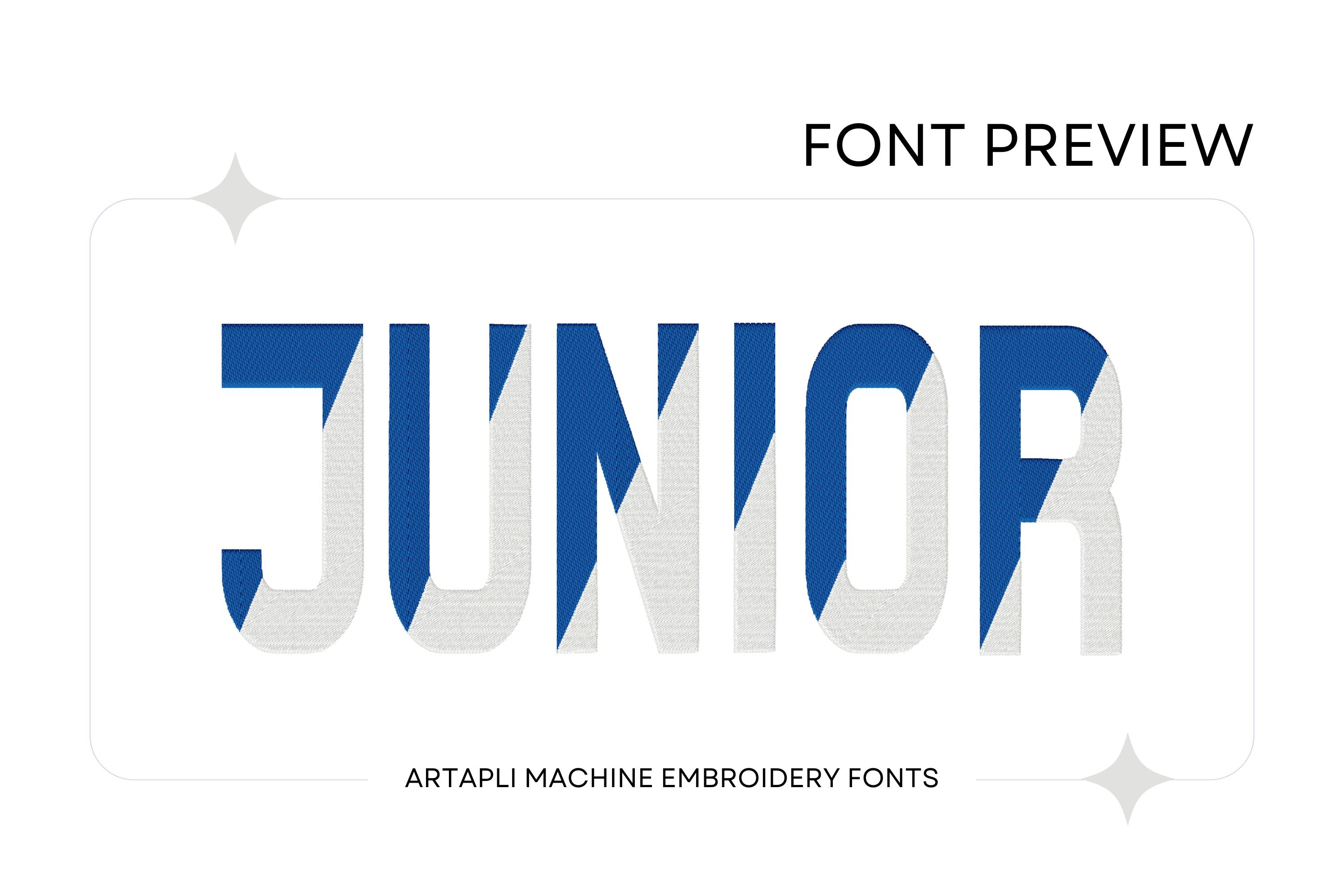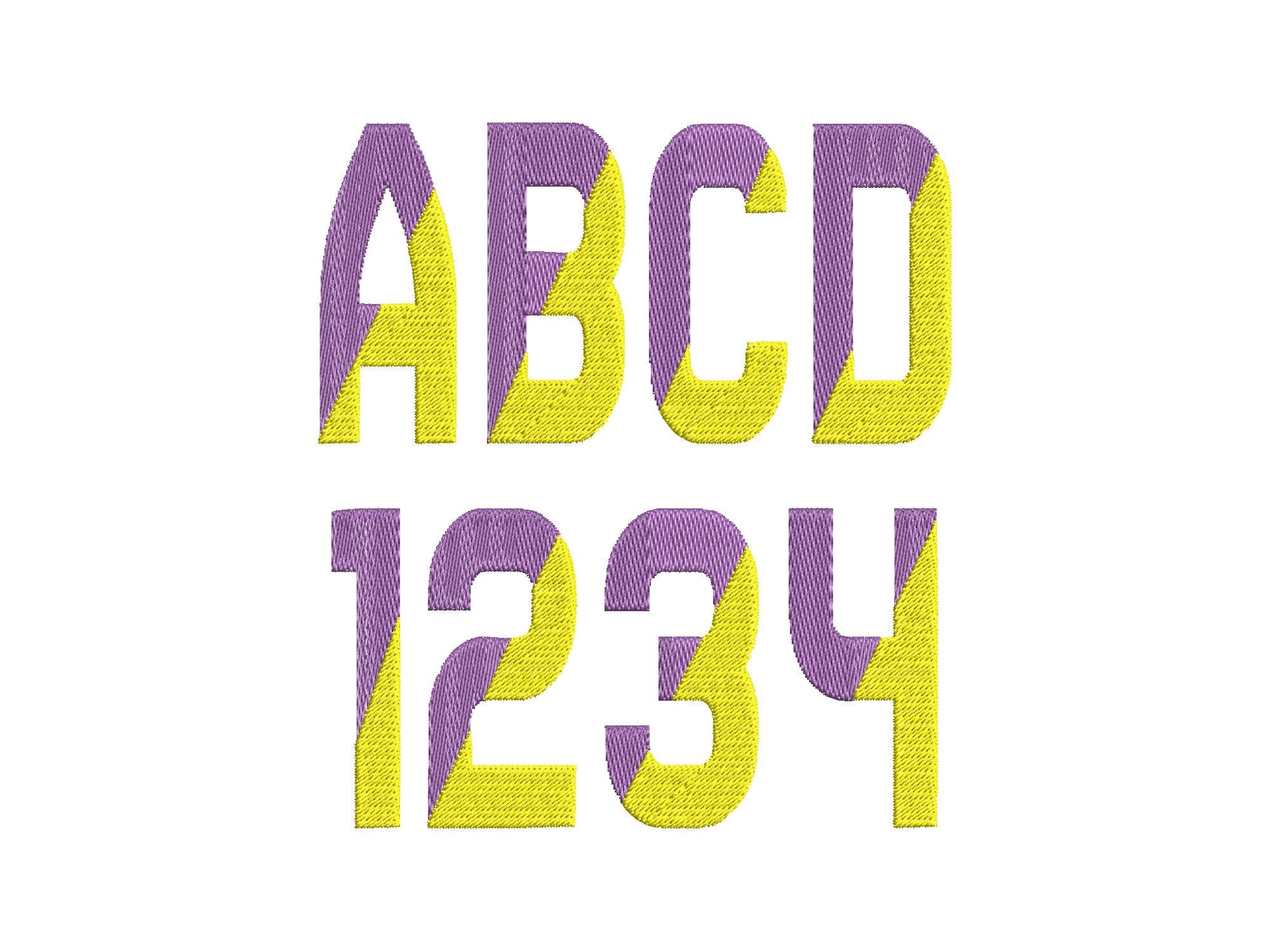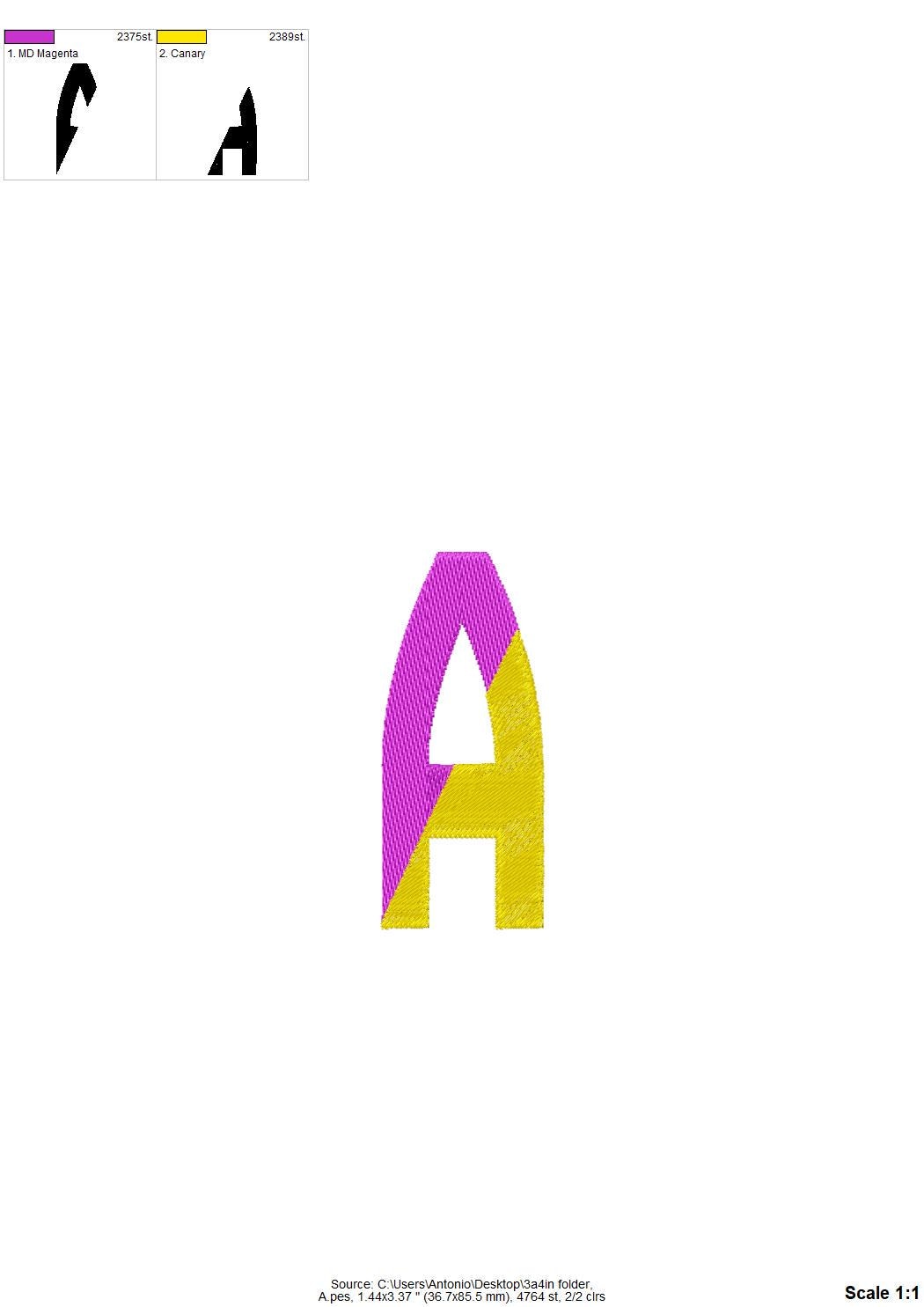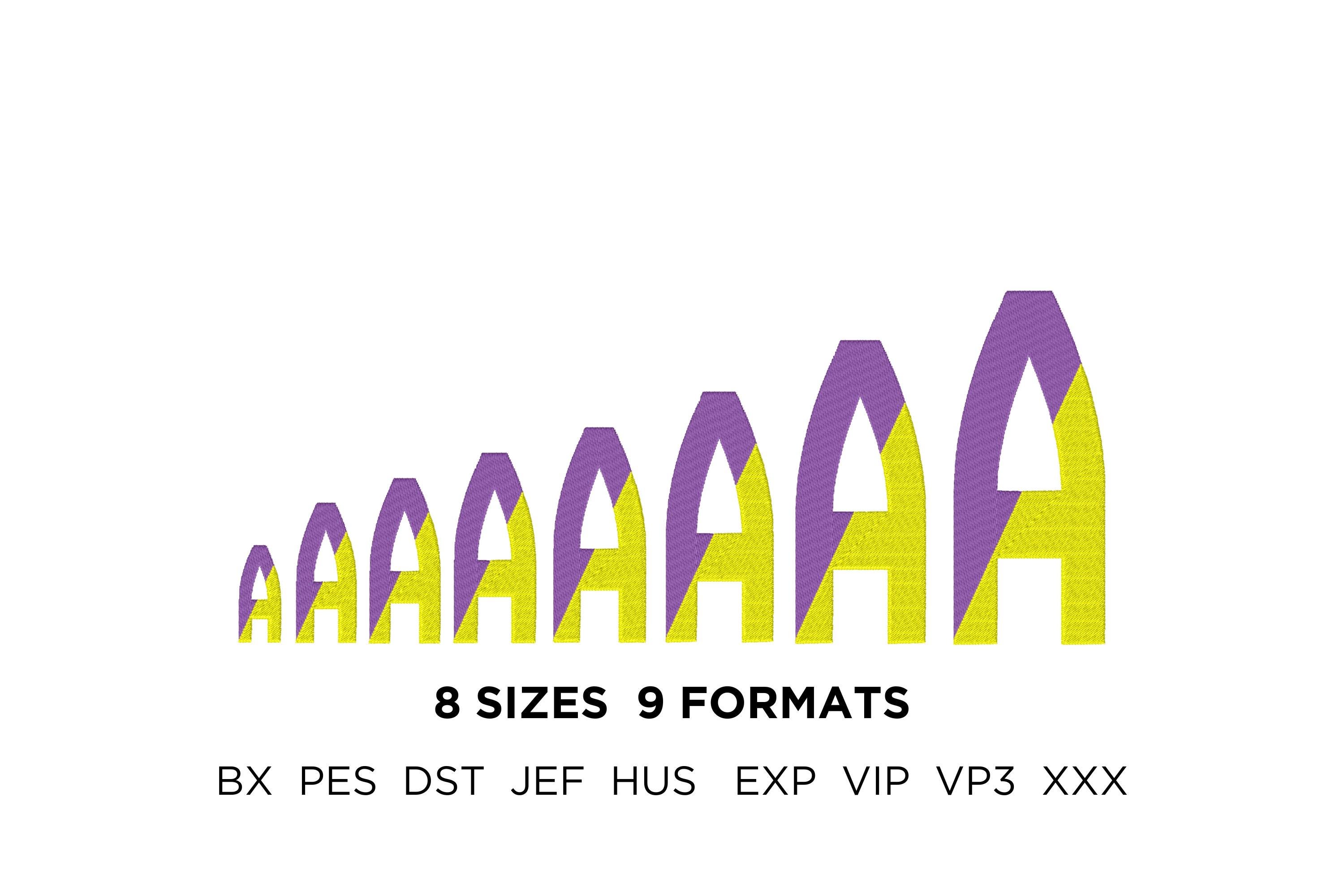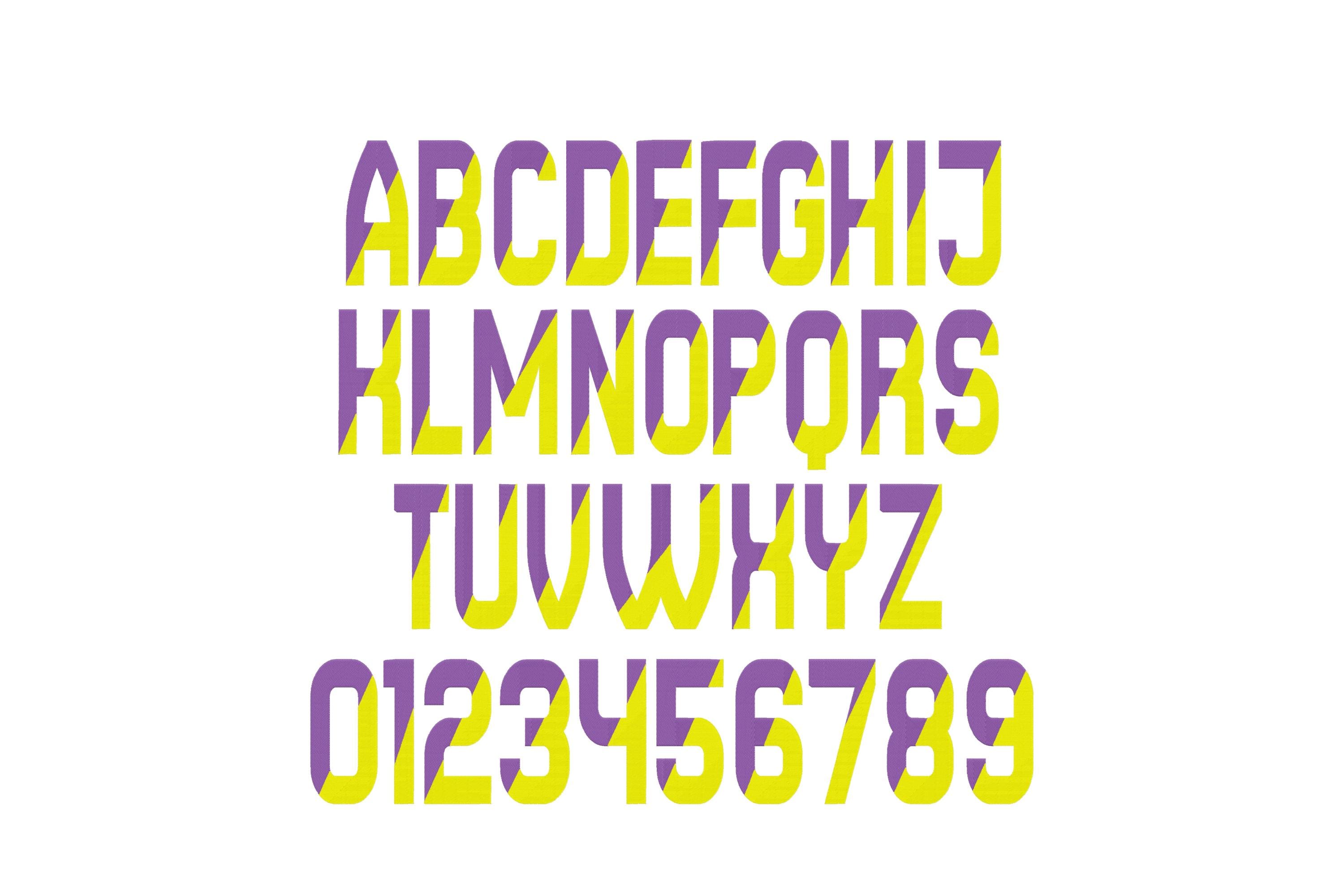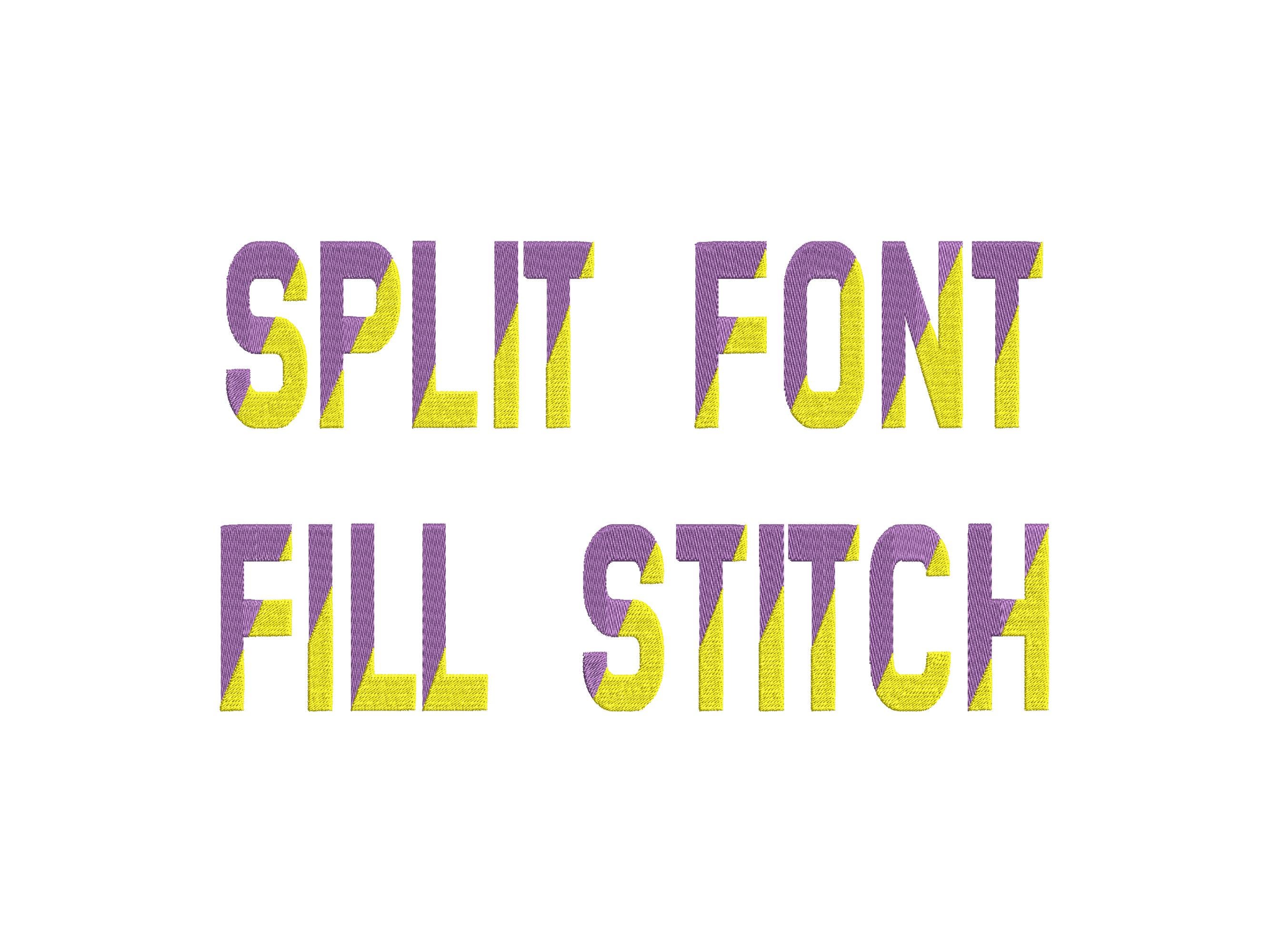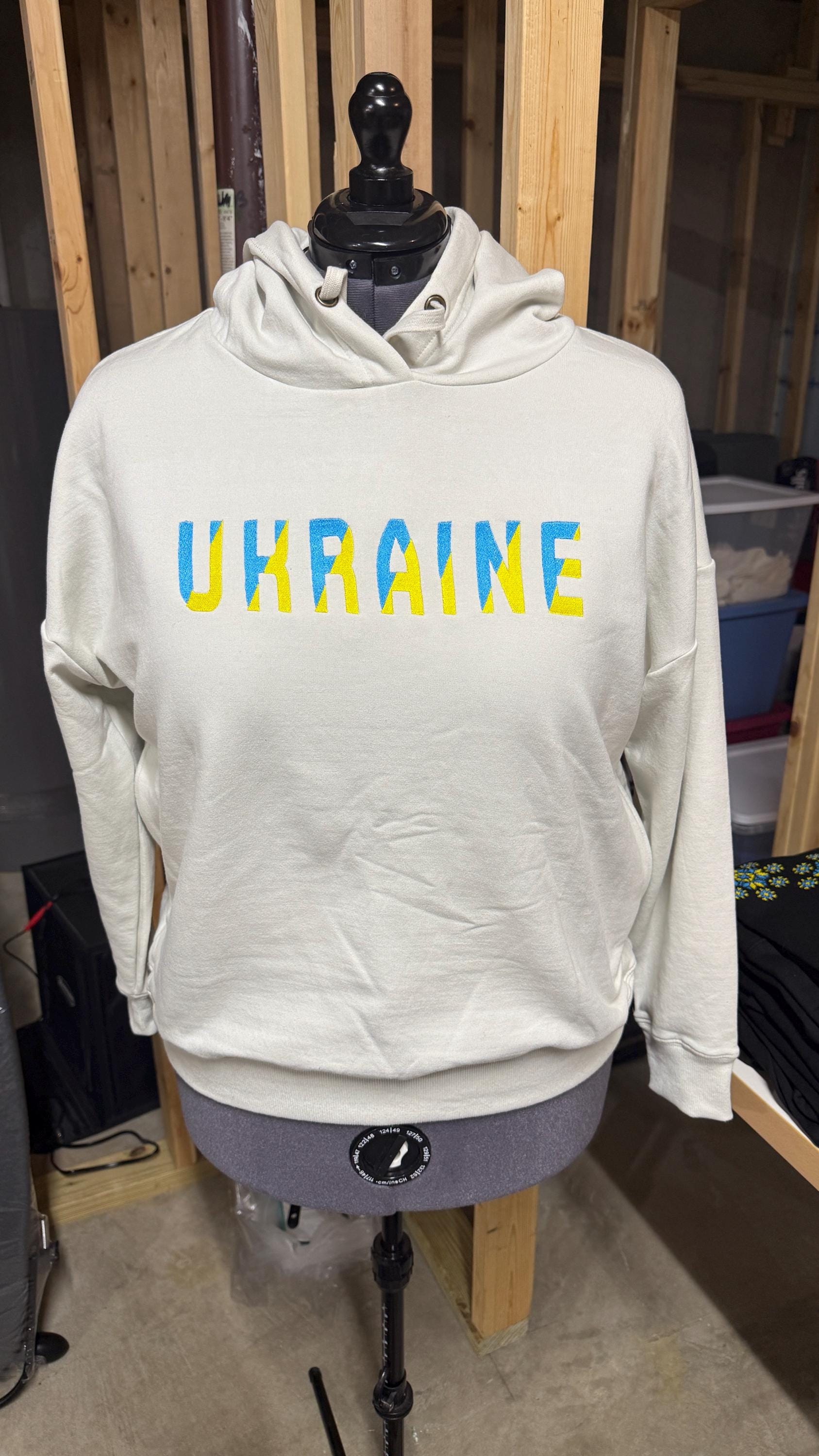
Diagonal Split FONT block type alphabet fill stitch 2 color narrow Font sports monogram machine embroidery designs sizes 1.5 up to 5.5 inch
Whole alphabet A-Z uppercase letters, and numbers 0-9.